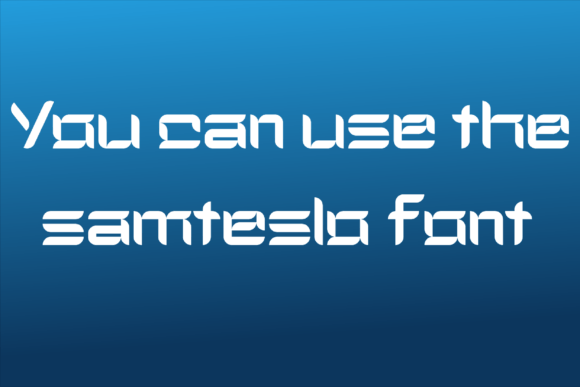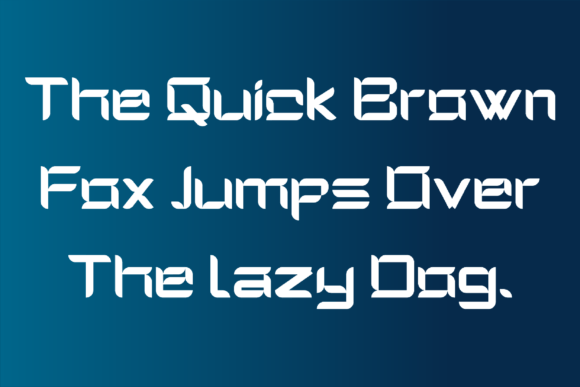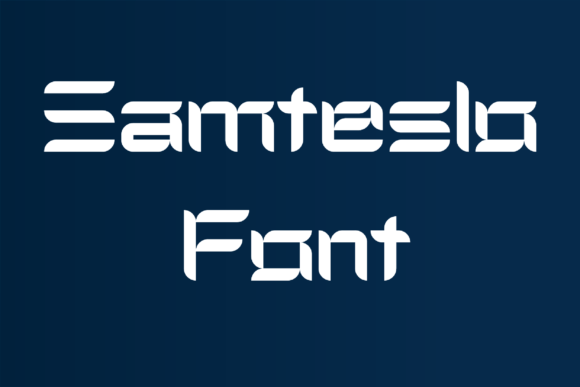
Introduction to Samteslo Font Font
Fonts play a crucial role in design, and the Samteslo Font font is a typeface that brings both character and versatility to any project. Whether you’re working on a branding project, a website, or a print design, the Samteslo Font font offers a unique style that can elevate your work.
Samteslo is a bold, industrial-grade display font exuding style and sophistication.
Perfect for eye-catching banner designs, title headings, mobile apps, logo creations, t-shirt graphics, and even car logos, it boasts a collection of 96 glyphs and 95 unique characters, making it versatile for a range of design needs .
Key Features of Samteslo Font Font
Why Choose Samteslo Font Font?
The Samteslo Font font is more than just a typeface – it’s a design tool that helps you communicate your message with style and clarity. Its unique character set and versatile design make it suitable for a wide range of applications, from elegant invitations to bold headlines.
With its carefully crafted letterforms and balanced proportions, the Samteslo Font font ensures readability and visual appeal across all mediums.
What makes Samteslo Font font special?
The Samteslo Font font stands out with its unique design, exceptional readability, and versatility across various design applications.